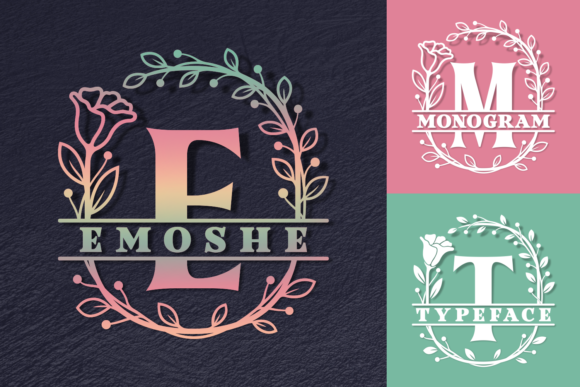
Embark on a typographic journey with Emoshe Font, a decorative masterpiece crafted by Situjuh. This elegant and authentic font exudes a captivating charm that will transform your design projects into works of art.
Immerse yourself in the world of initial logos and let Emoshe Font guide you towards creating visually stunning and memorable designs. Its intricate details and sweeping curves add a touch of sophistication and uniqueness to any project. Unleash your creativity and let Emoshe Font elevate your designs to new heights.
With Emoshe Font, you hold the key to unlocking endless possibilities. Its versatility and adaptability make it the perfect choice for a wide range of design endeavors. From branding and logo design to social media graphics and website headers, Emoshe Font effortlessly adds a touch of elegance and charm.
Picture this: your designs adorned with the captivating beauty of Emoshe Font, captivating the attention of your audience and leaving a lasting impression. Let your imagination soar as you explore the limitless potential of this exquisite font.
Step into the realm of typographic excellence with Emoshe Font and unlock a world of creative possibilities. Embrace the beauty of intricate details, delicate curves, and timeless elegance. Elevate your designs, captivate your audience, and embark on a journey of visual storytelling like never before.